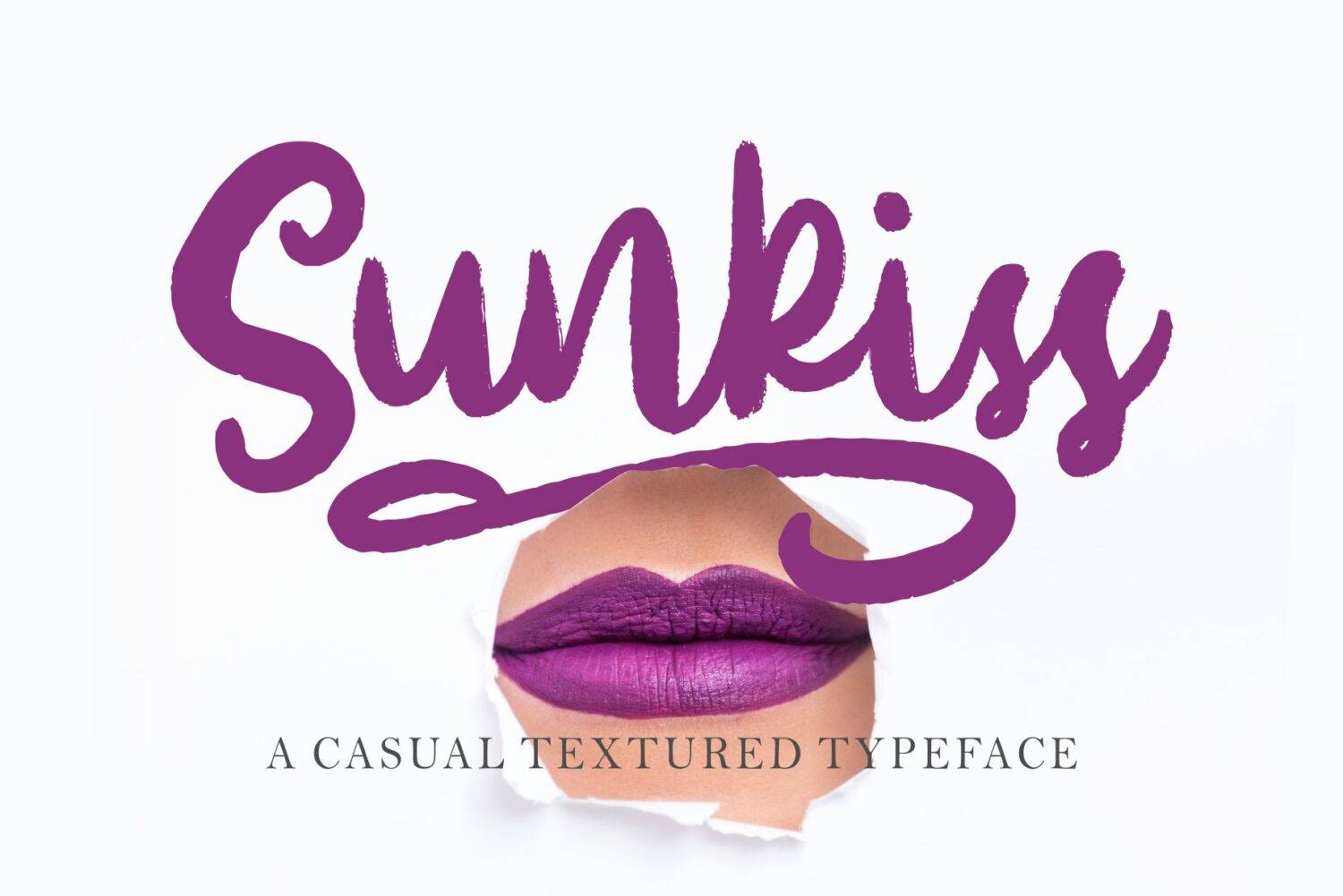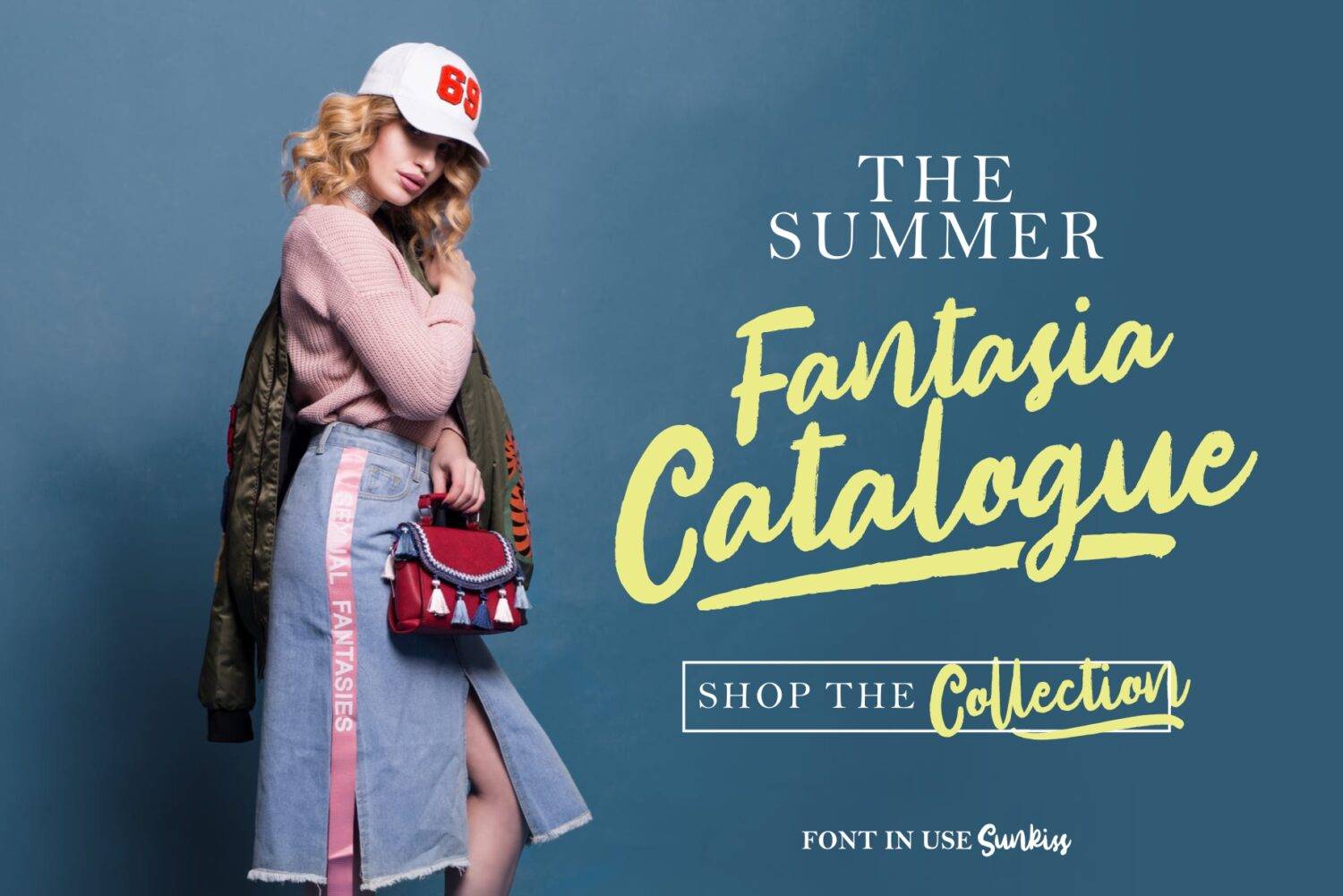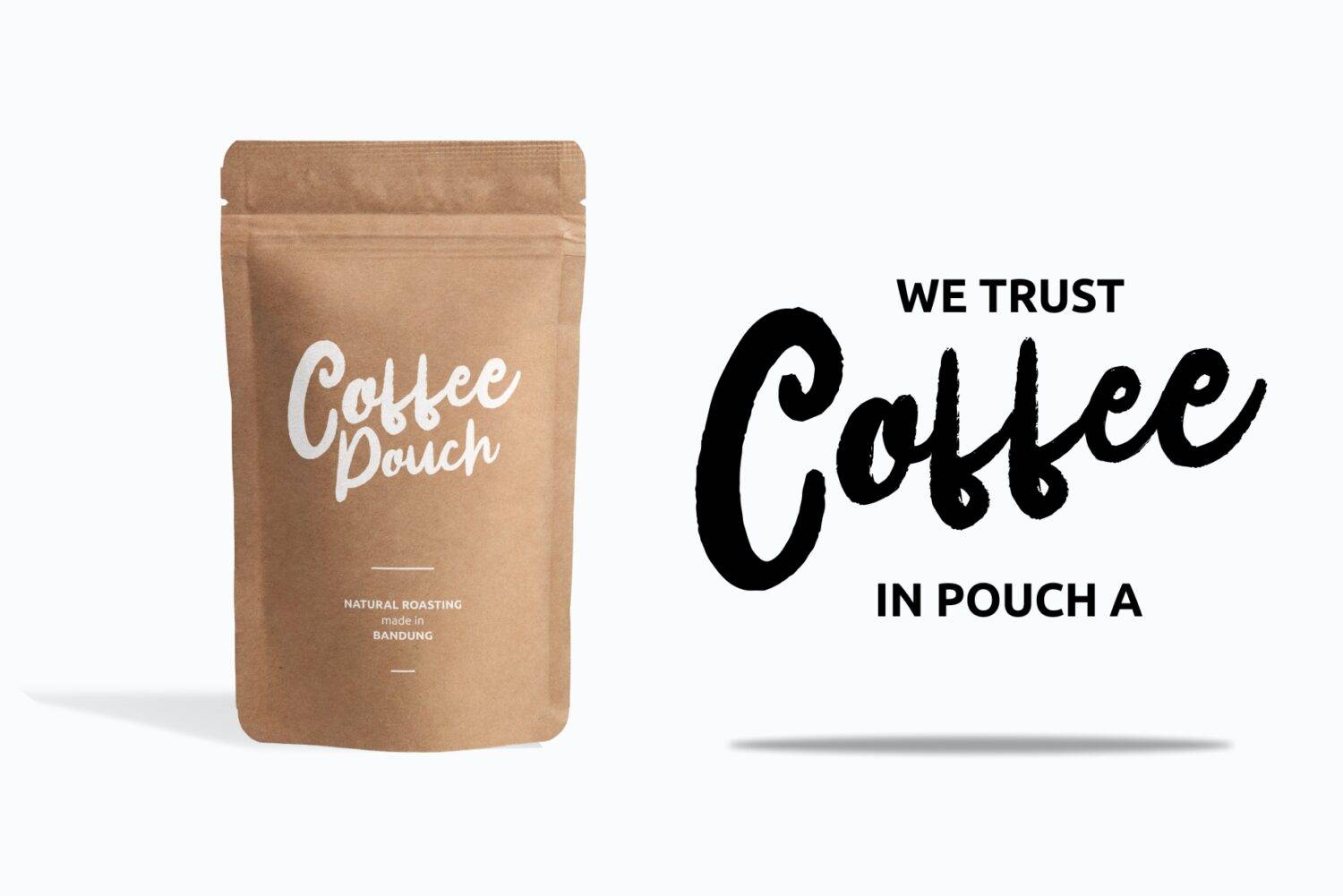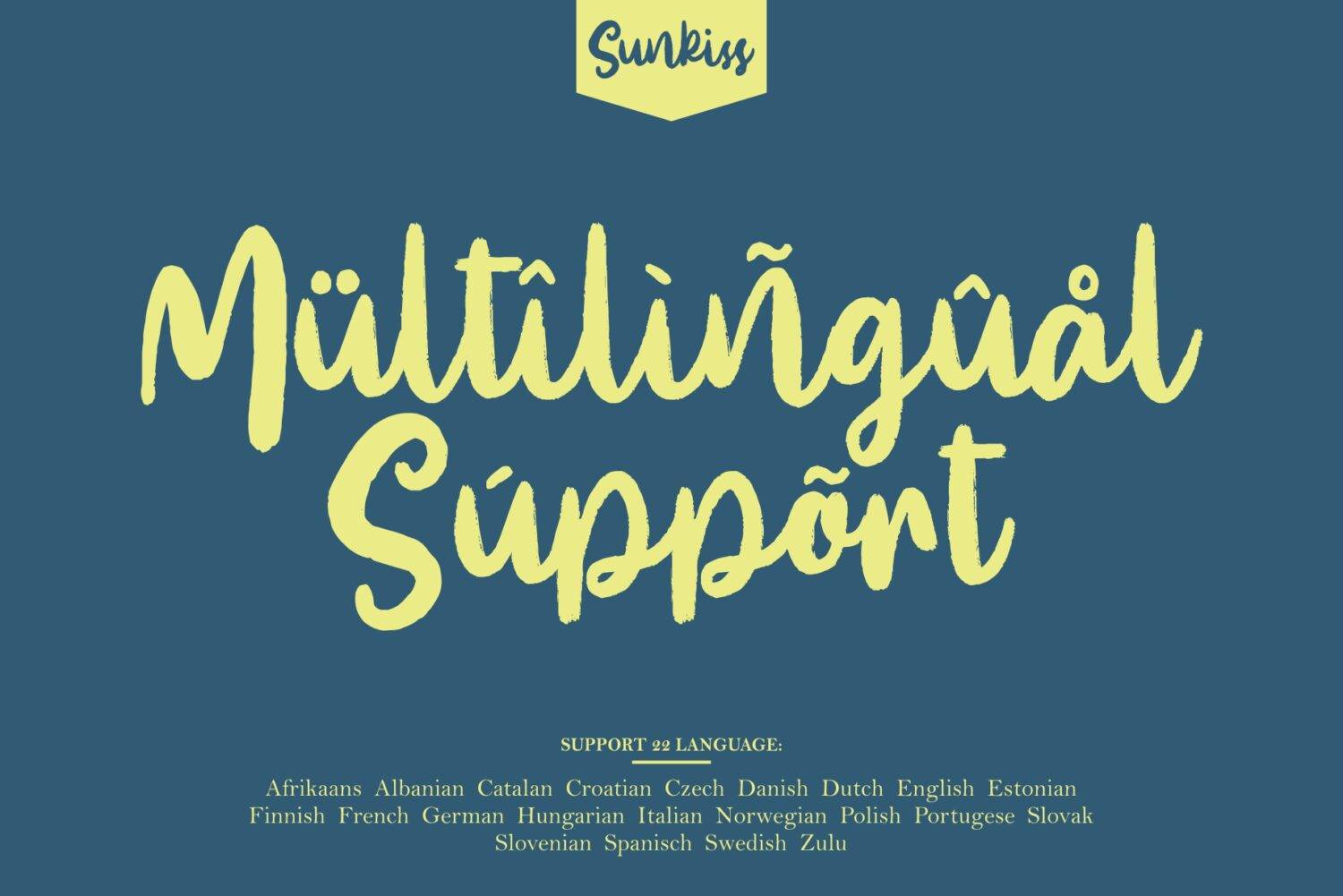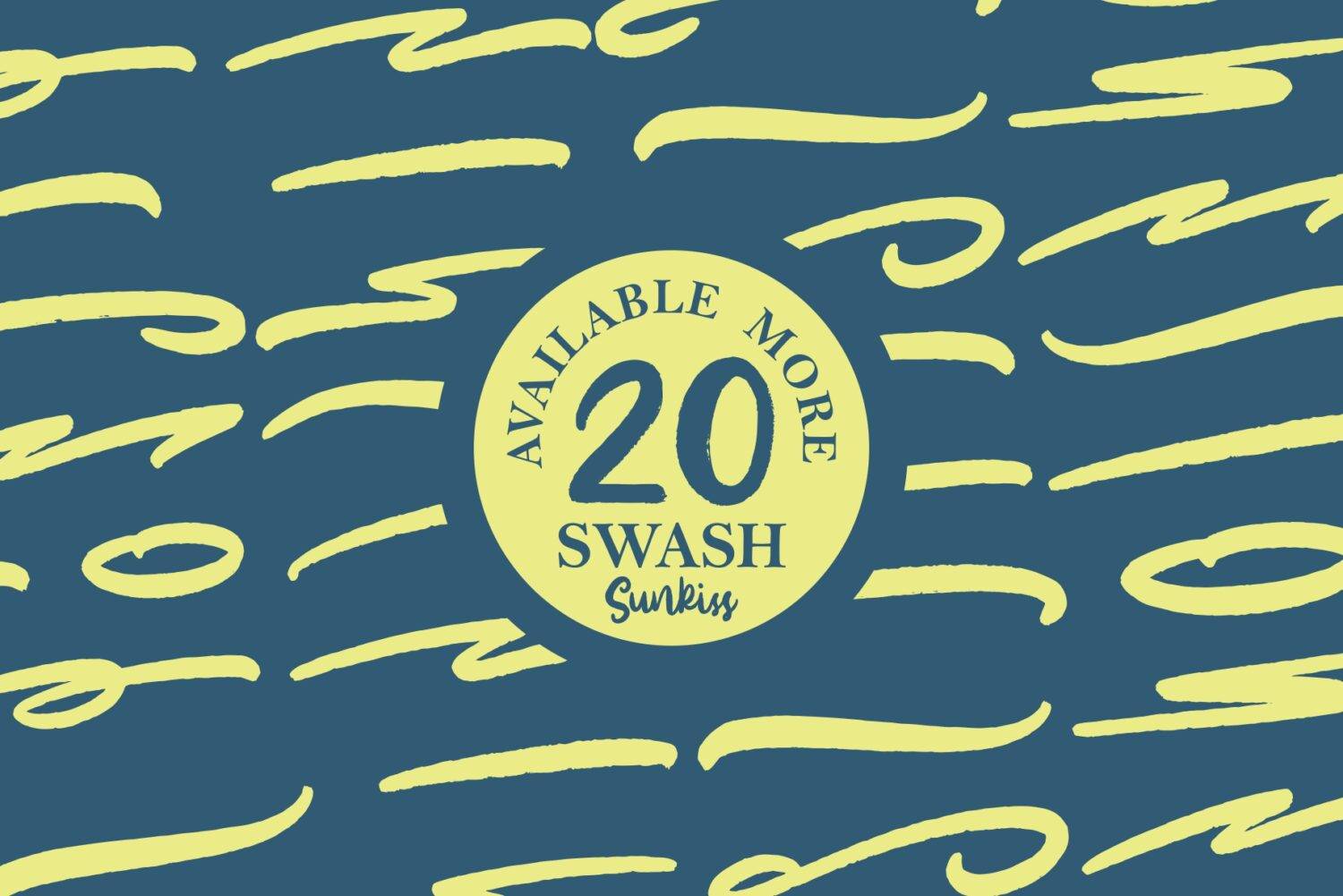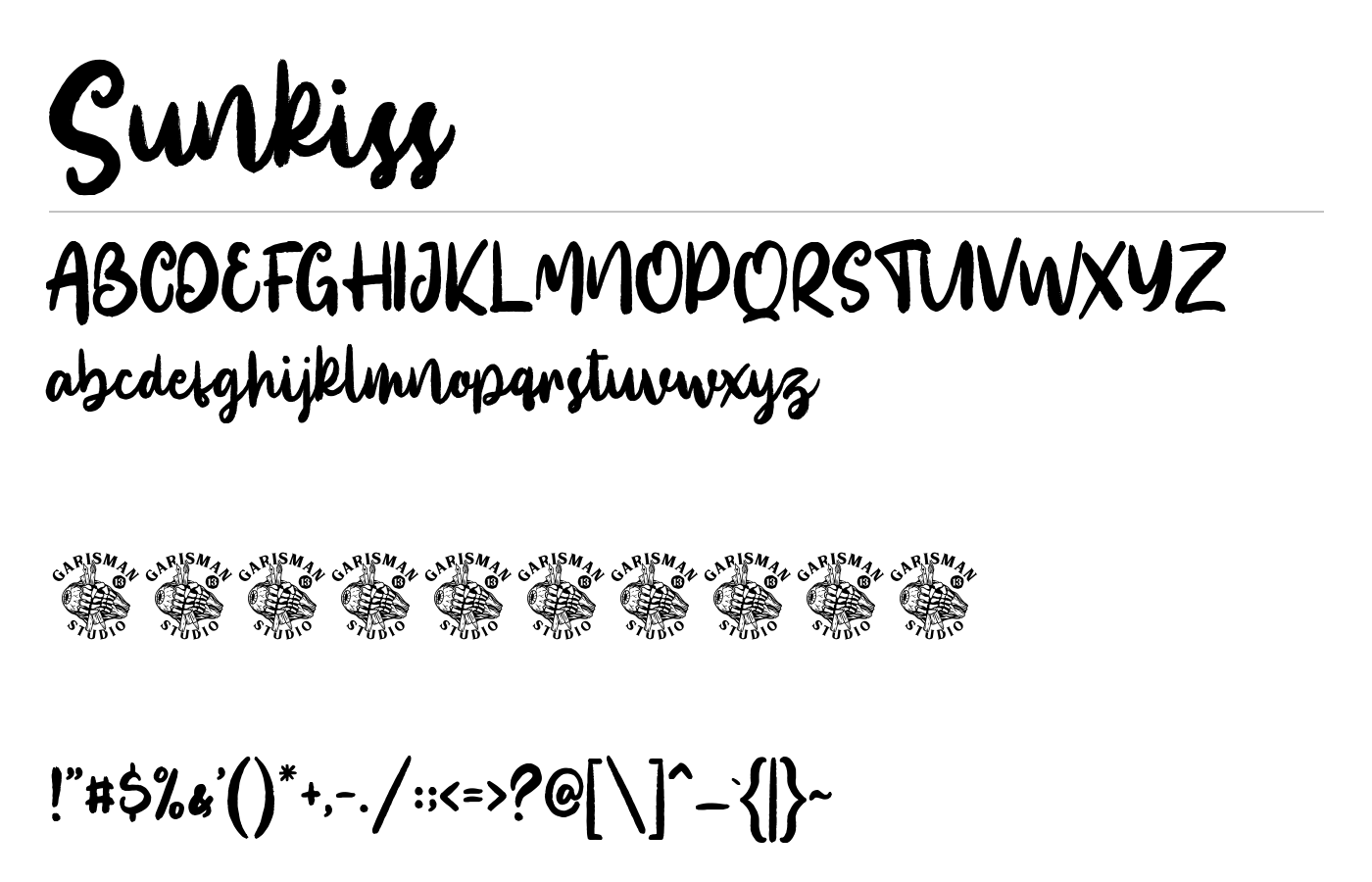
Sunkiss is a lively handwritten script font that combines a playful, casual vibe with bold, rounded strokes and moderate contrast. Its informal letterforms, featuring unique character shapes and a friendly, approachable feel, make it perfect for creative projects, branding, and headlines where a warm, personal touch is desired. This font works especially well for logos, packaging, and social media designs that aim to convey energy and friendliness.
Sunkiss Font
About Sunkiss Font
| Font family | Sunkiss Font |